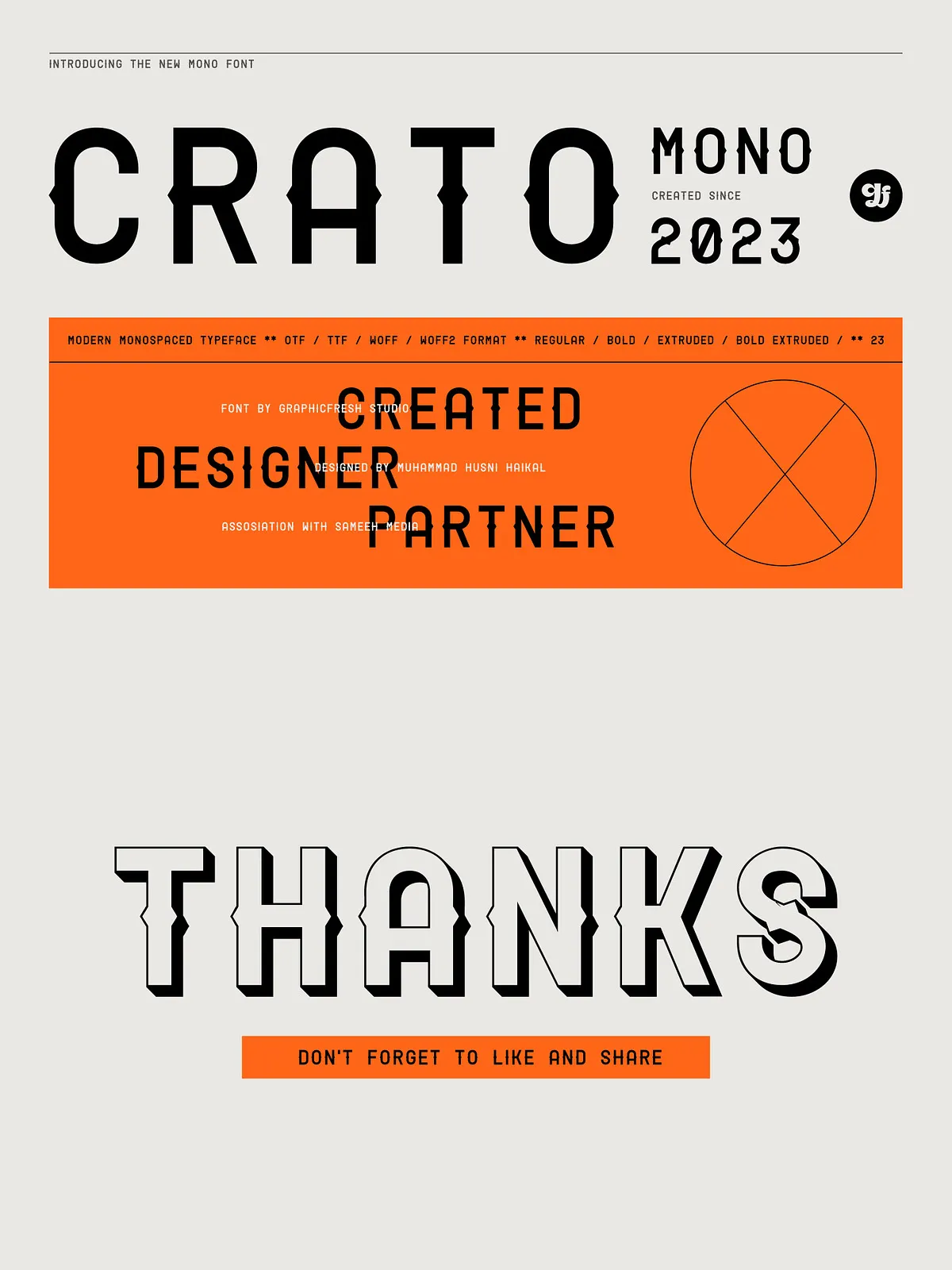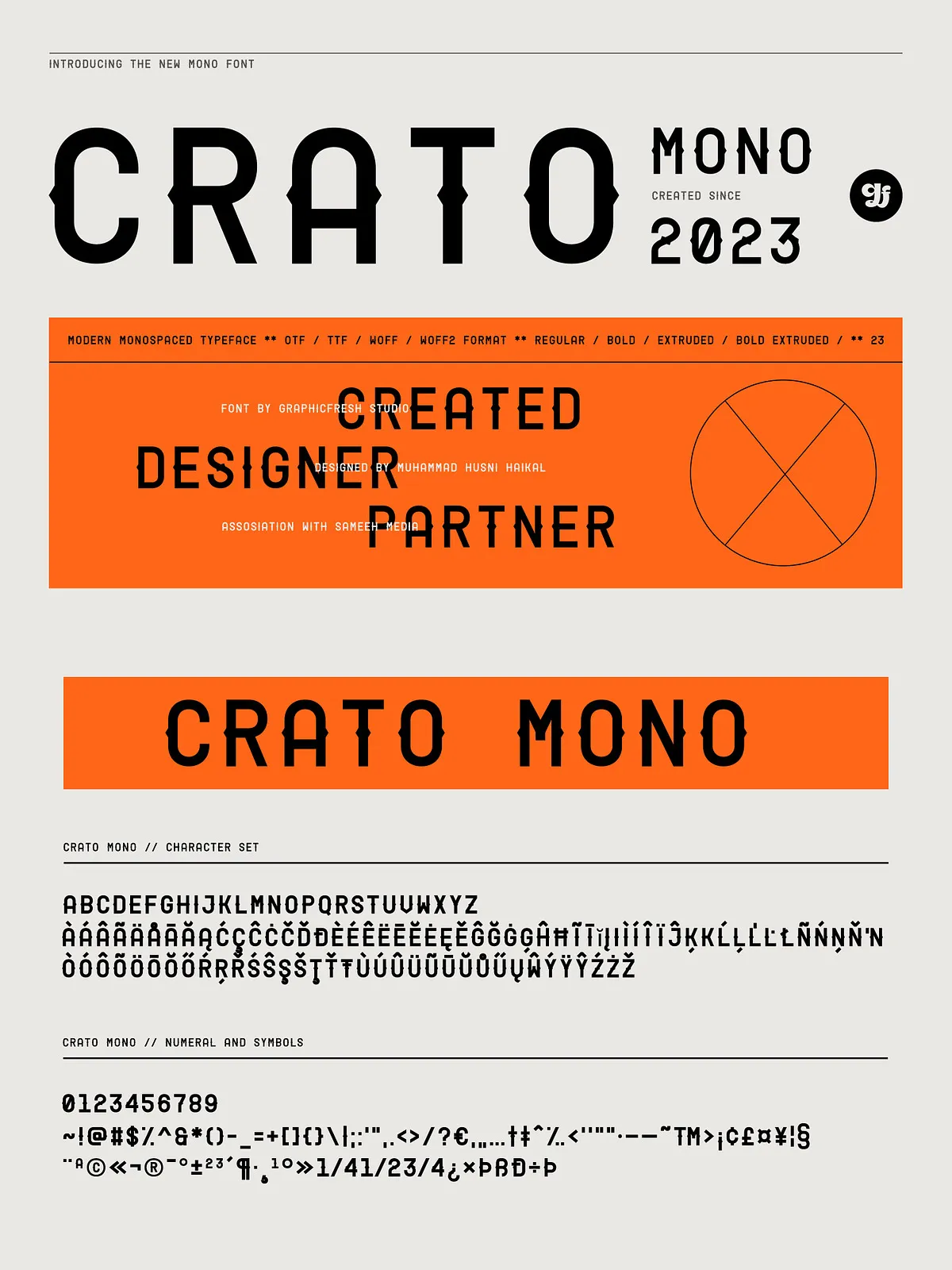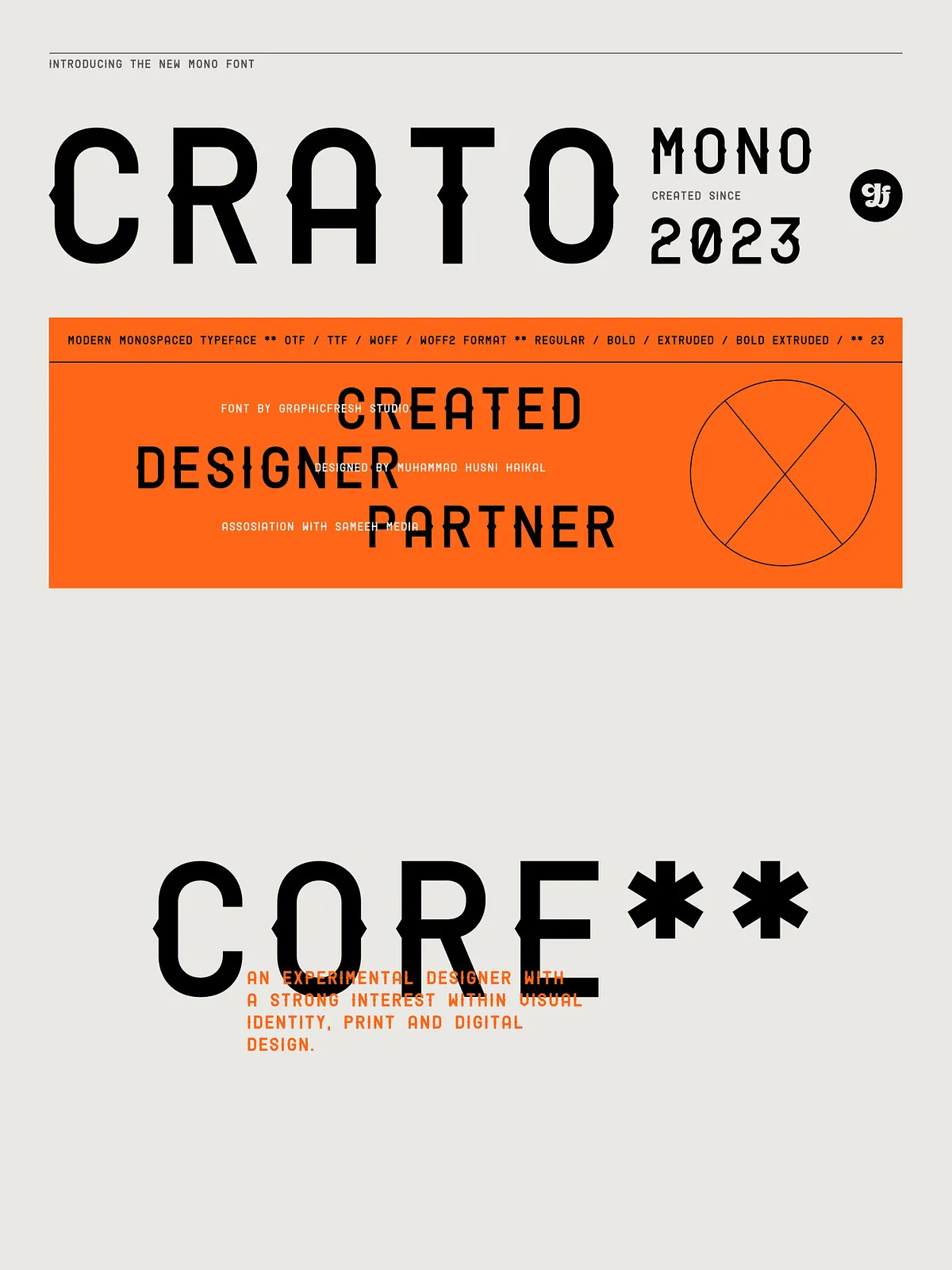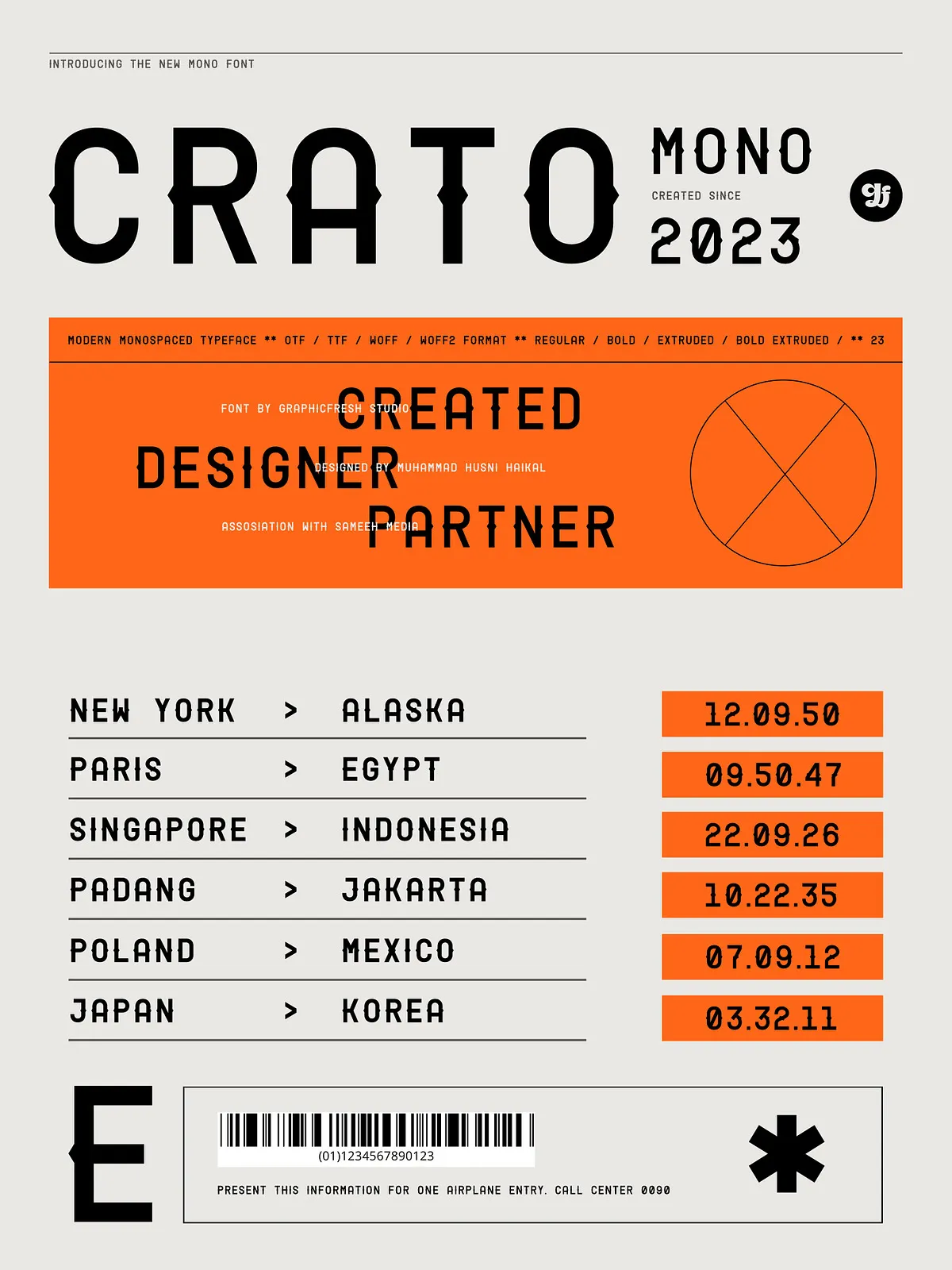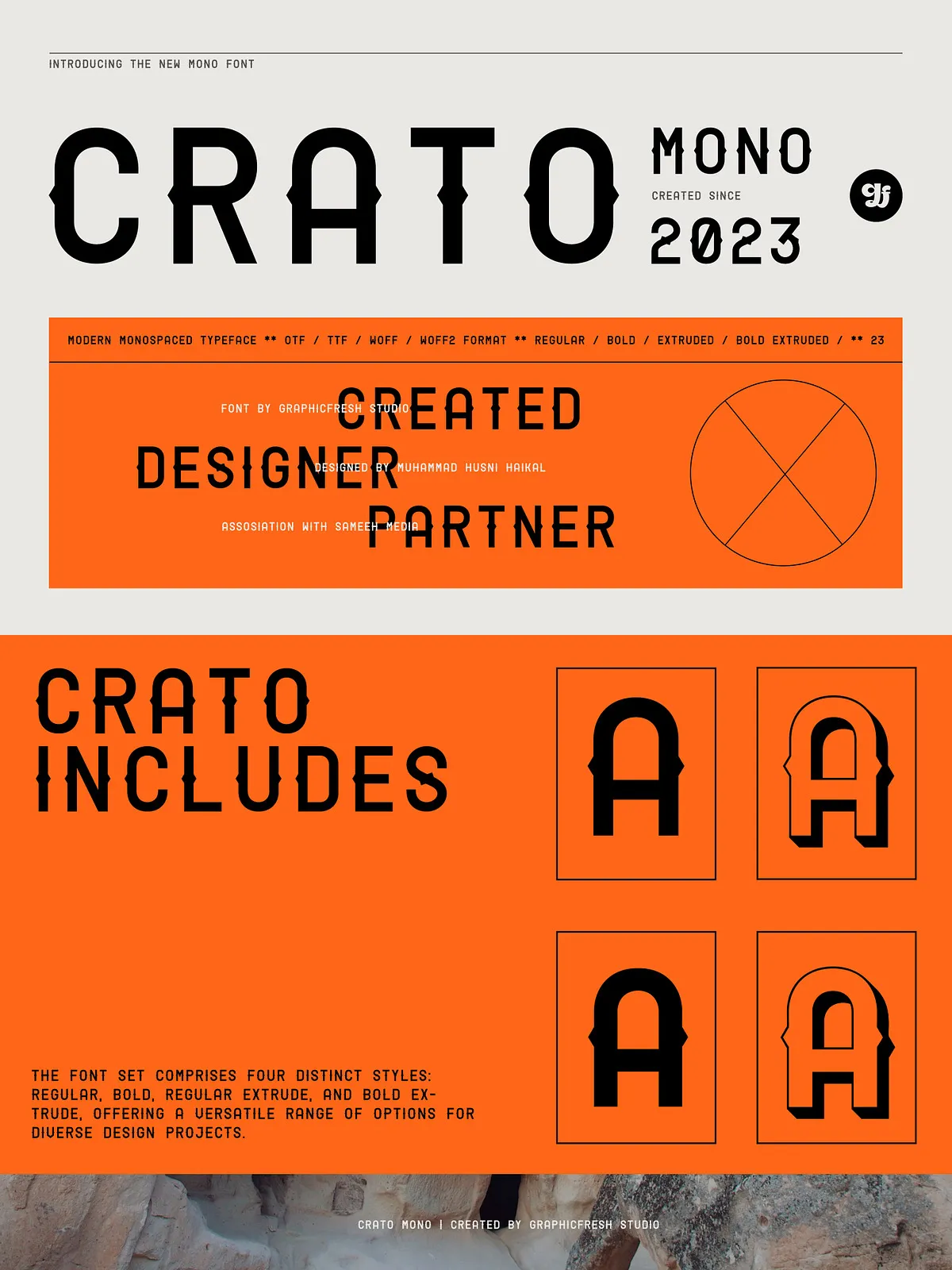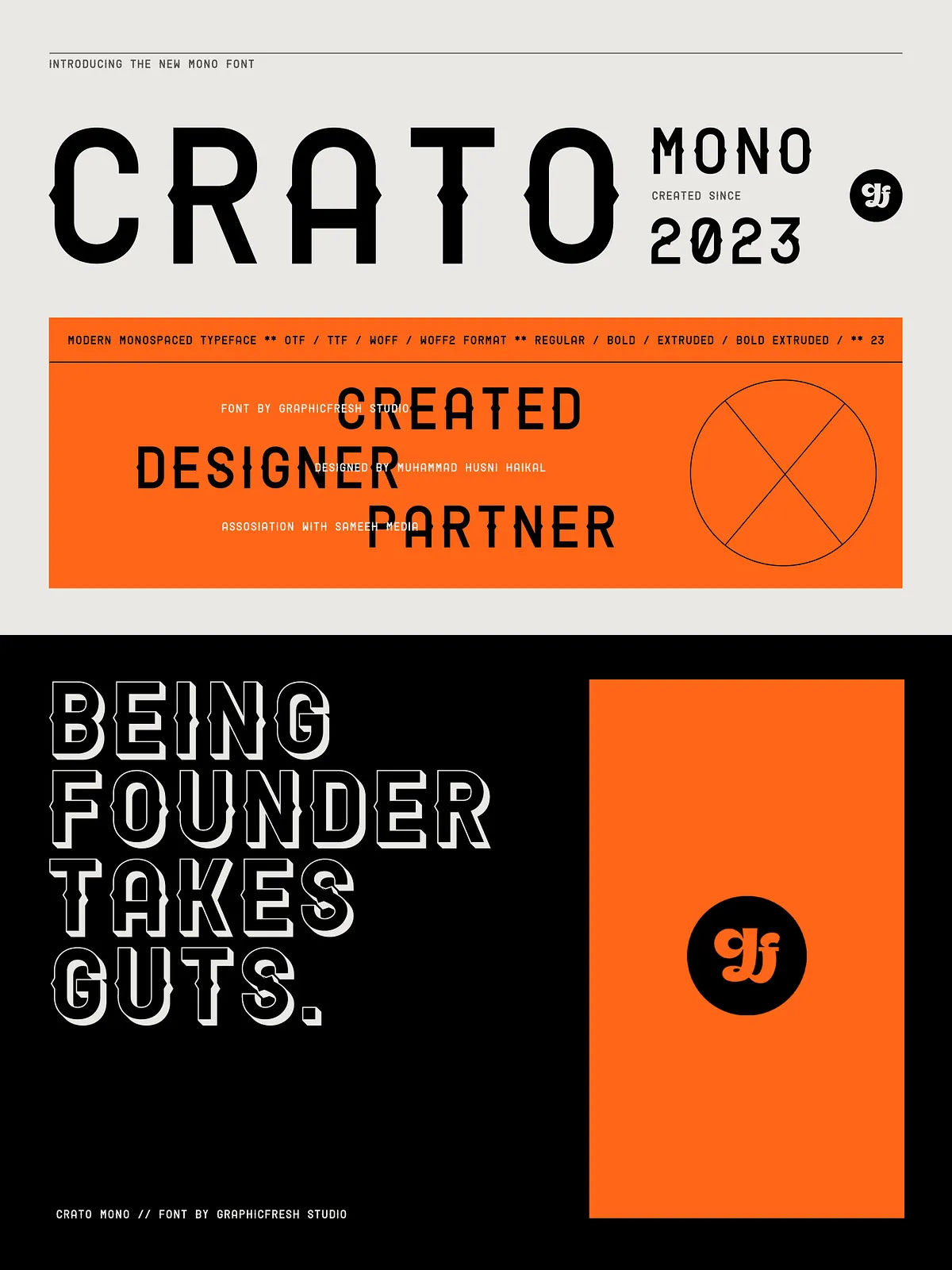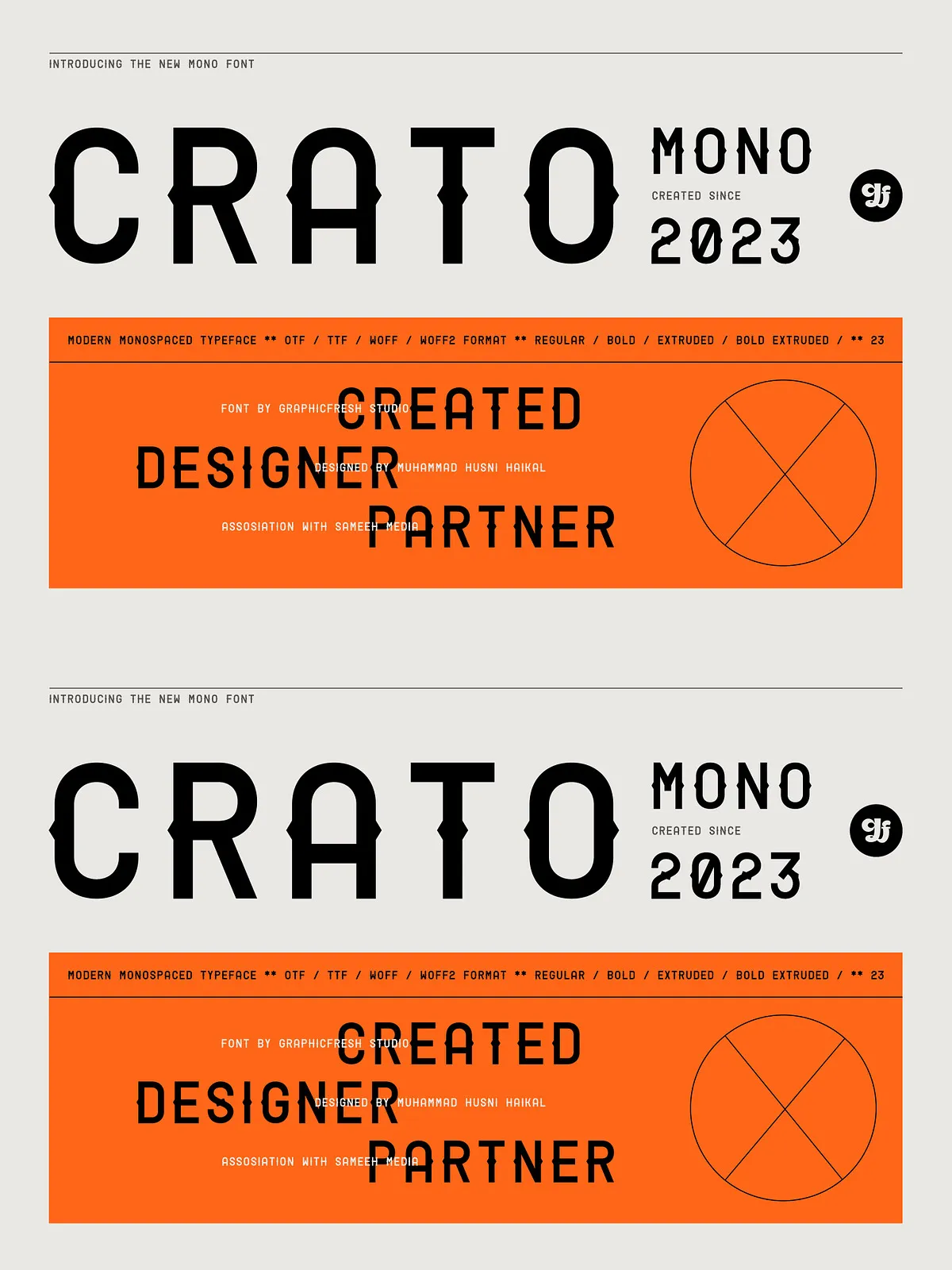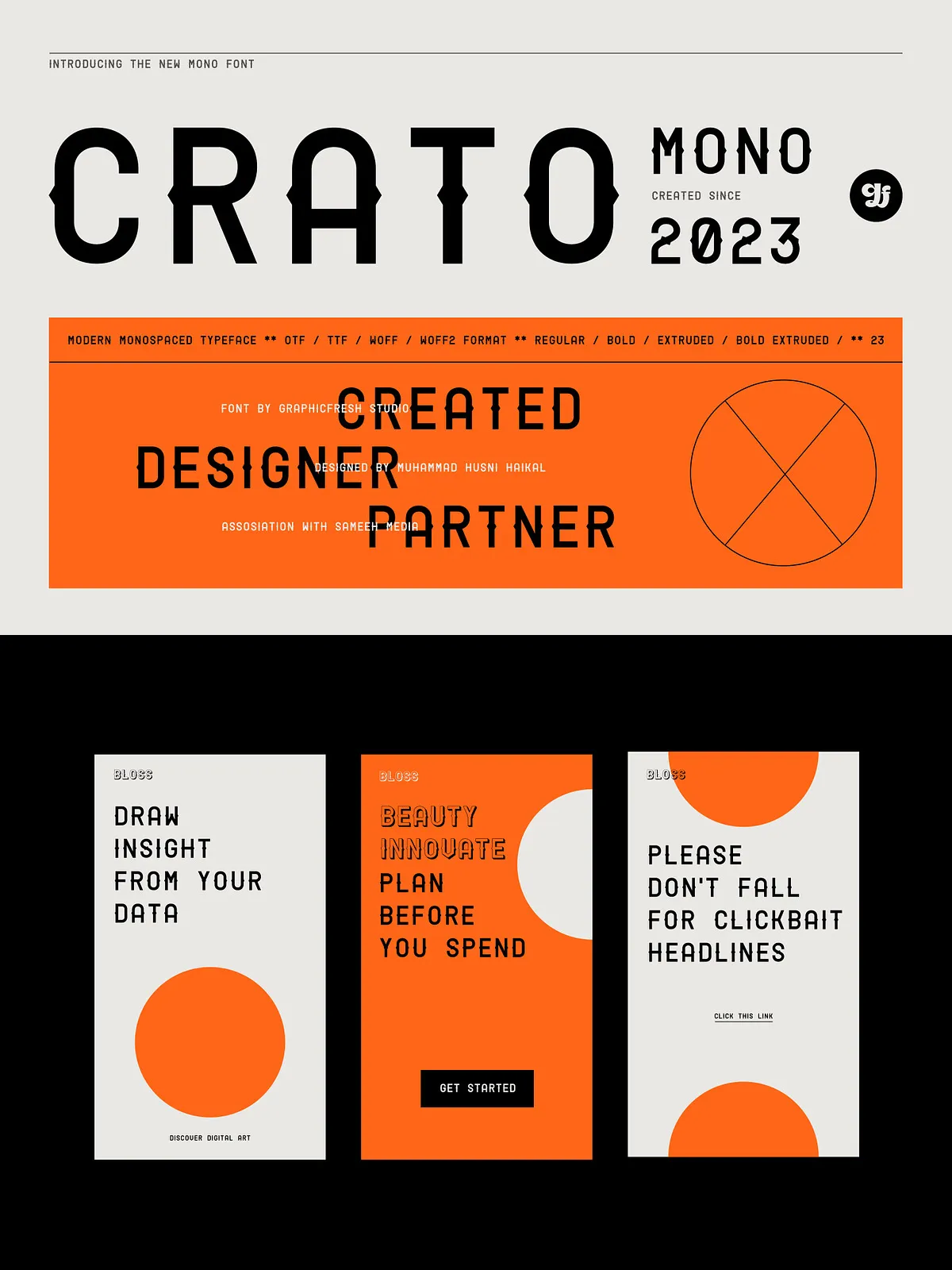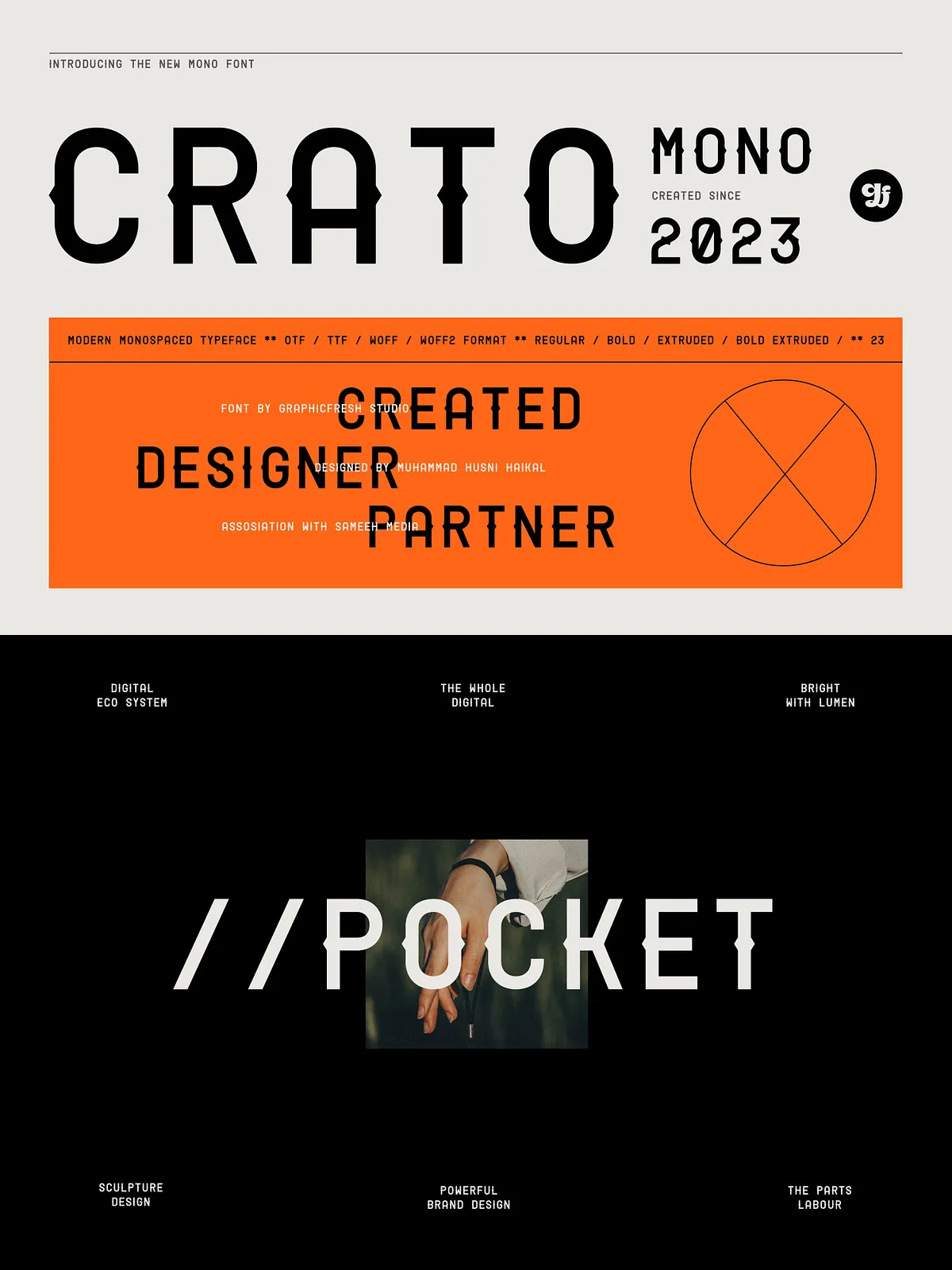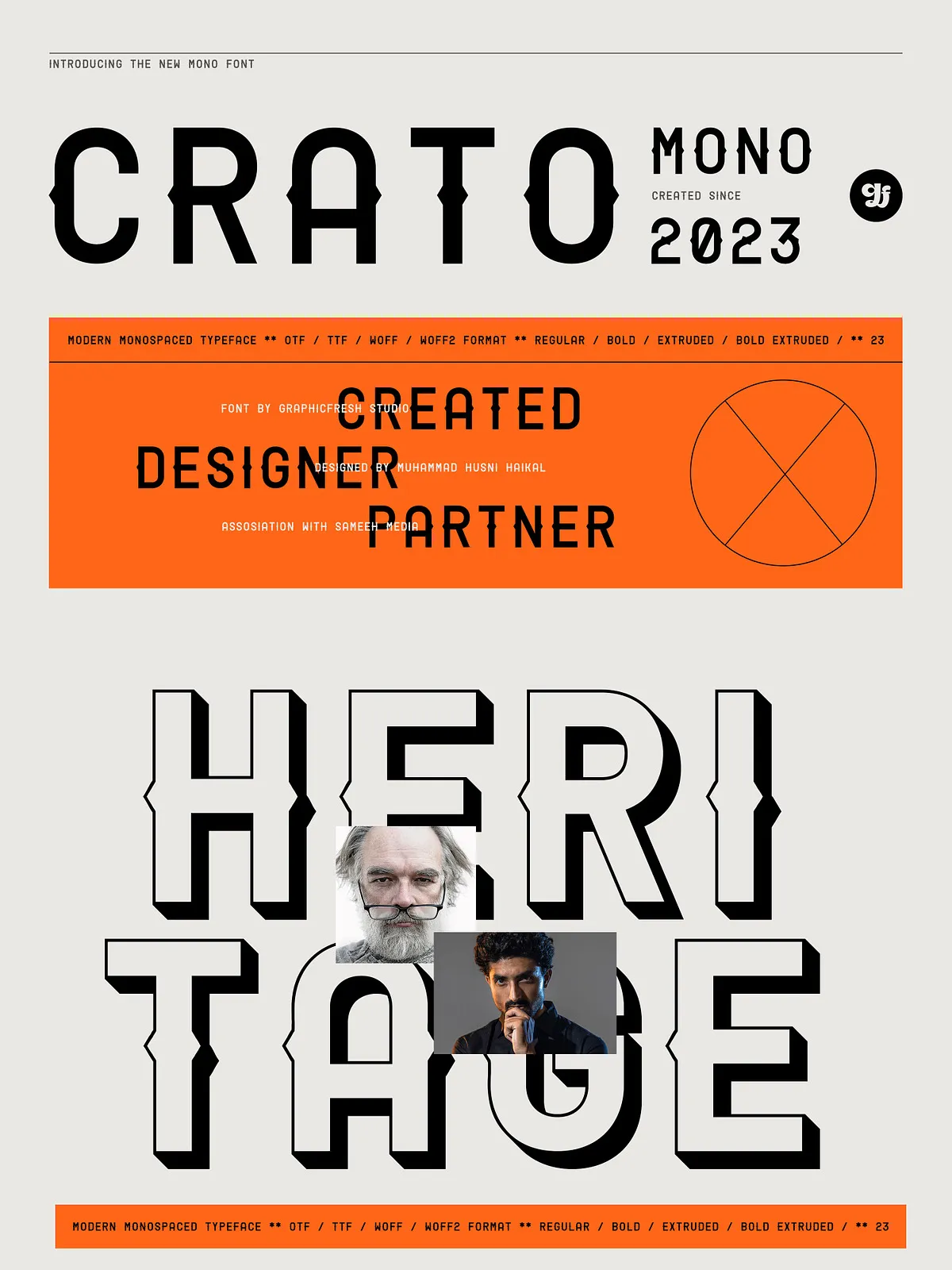
Crato Mono – Modern Monospaced Font
Crato Mono doesn’t just follow trends—it redefines the monospaced genre. Inspired by the mechanical elegance of typewriters and the sleek minimalism of digital interfaces, this font strikes a rare balance between nostalgic warmth and contemporary sharpness. Every letter is meticulously crafted to ensure consistent spacing, clean lines, and a human-centered feel that stands out in any medium.
Engineered for Versatility Across All Creative Domains
From Code to Copy, From Logos to Layouts
Whether you’re writing clean code, designing an elegant website, crafting a retro-inspired brand identity, or developing digital content, Crato Mono performs seamlessly. Its perfectly aligned characters maintain equal width in every line—perfect for programming environments, terminal displays, and technical documentation. But don’t let the technical roots fool you: the soft curves and refined proportions also make it ideal for stylish headlines, editorial layouts, and print design.
With five distinct weights—from light to bold—Crato Mono adapts to your visual hierarchy with ease. The light weight commands elegance in subtitles and body text, while the bold version dominates as a striking display font. This wide range of styles ensures you have the right tool for every creative challenge.
Designed for Creatives Who Demand Quality and Clarity
High-Contrast Lines, Consistent Spacing
Crato Mono’s structural intelligence lies in its thoughtful spacing and stroke consistency. The x-height is carefully calibrated to maximize legibility without sacrificing visual tension. The lowercase letters sit comfortably on the baseline, while ascenders and descenders extend with purpose—never overreaching, never underwhelming.
All glyphs are designed using a unified grid system to maintain vertical alignment and horizontal rhythm, ensuring that even long text blocks remain readable and visually cohesive. The subtle rounding on serifs and terminals softens the rigid nature of monospace fonts without losing precision—this is not a cold, mechanical font. It’s a thoughtful modern classic.
Don’t just use Crato Mono—own it. Embrace its clean lines, timeless design, and versatile power. Let it elevate your projects from good to unforgettable.
Crato Mono isn’t just a font. It’s a design companion. It’s the bridge between the past and the future, between function and form. Whether you’re a developer, designer, brand strategist, or artist, Crato Mono gives you the tools to express your vision with clarity, strength, and style.